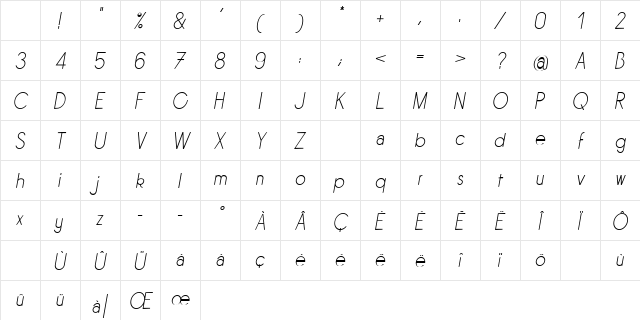
Complete Sornette Light Italique glyph index. Displaying only characters natively supported by Sornette Light Italique font.
Sornette is a composed and adaptable typeface that performs quietly and consistently across a wide range of design contexts. Its slender proportions lend an understated elegance to any composition.